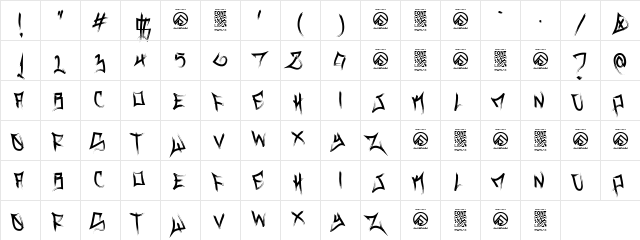
Vance Jackson Regular
Design Context for Vance Jackson Typeface
Vance Jackson is a composed and adaptable typeface that performs quietly and consistently across a wide range of design contexts.